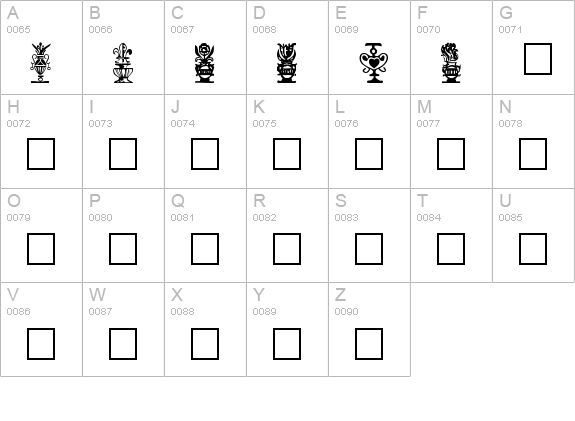
TitlingOrnament.fog Font Details
Introducing TitlingOrnament.fog, a breathtaking font that seamlessly blends elegance and sophistication with a touch of whimsical charm. This font is a true testament to the power of design, as each letter is meticulously crafted to capture the essence of ornate beauty. TitlingOrnament.fog boasts an array of exquisite typographic ornaments and flourishes that effortlessly enhance any design project. From luxurious wedding invitations to captivating book covers, this font is a versatile choice for those seeking to add a touch of opulence to their creative endeavors. What sets TitlingOrnament.fog apart is its unique ability to effortlessly adapt to various design styles. Whether you're aiming for a classical aesthetic or a modern twist, this font's versatility ensures that it will effortlessly complement your vision. But perhaps the most enticing aspect of TitlingOrnament.fog is that it is available for free download exclusively at FontsMarket.com. Yes, you read that right – this font can be yours without costing a penny. FontsMarket.com understands the importance of accessible design resources, and they are proud to offer this stunning font to designers, artists, and enthusiasts alike. So why wait? Elevate your design projects to new heights with TitlingOrnament.fog. Download it now for free at FontsMarket.com and unlock a world of elegance and creativity at your fingertips.